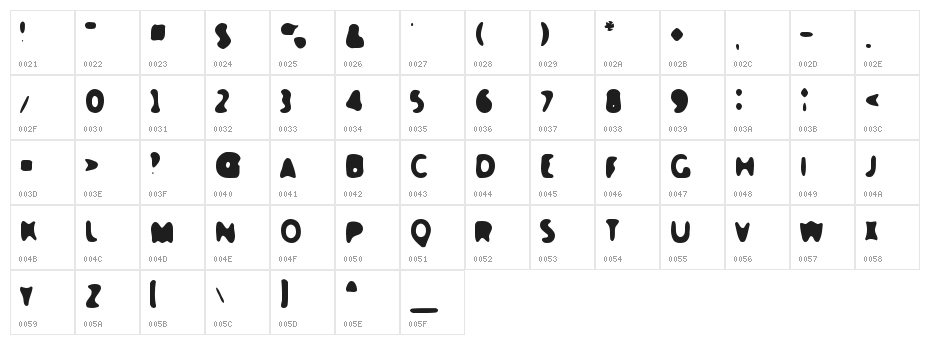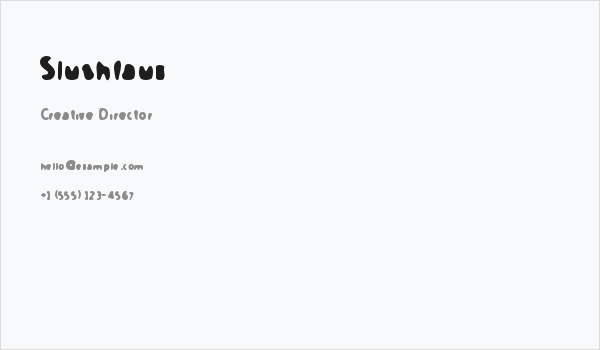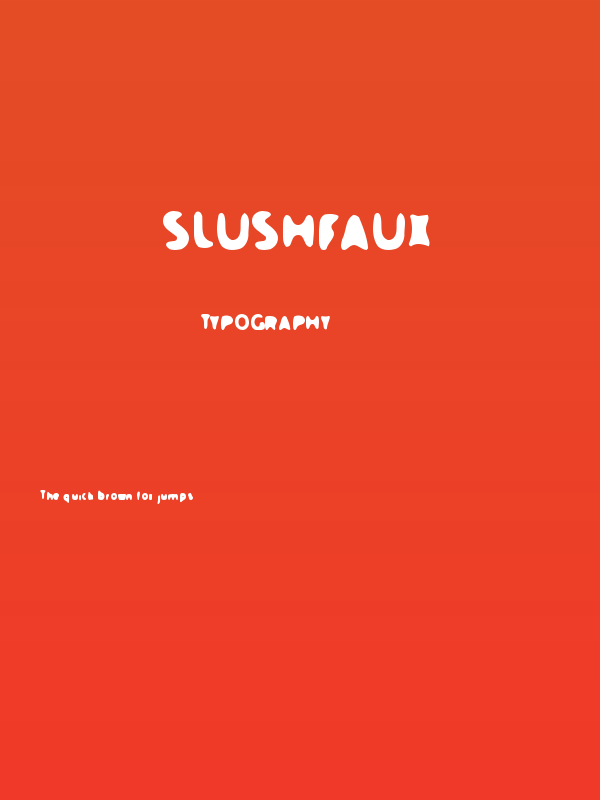
Slushfaux Font
Slushfaux Description
This playful and bold font features a unique, organic style with rounded, irregular shapes that give it a whimsical and friendly appearance. The characters are thick and substantial, with a hand-drawn feel that adds a touch of creativity and fun. The letters are slightly uneven, contributing to a casual and informal vibe. This font is perfect for projects that require a touch of humor and personality, such as children's books, playful branding, or creative posters. Its distinctive style makes it stand out, ensuring that any text set in this font will capture attention and convey a sense of fun and spontaneity.
| Proposed Projects | Ideal for children's books, playful branding, creative posters, and any project needing a fun, informal touch. |